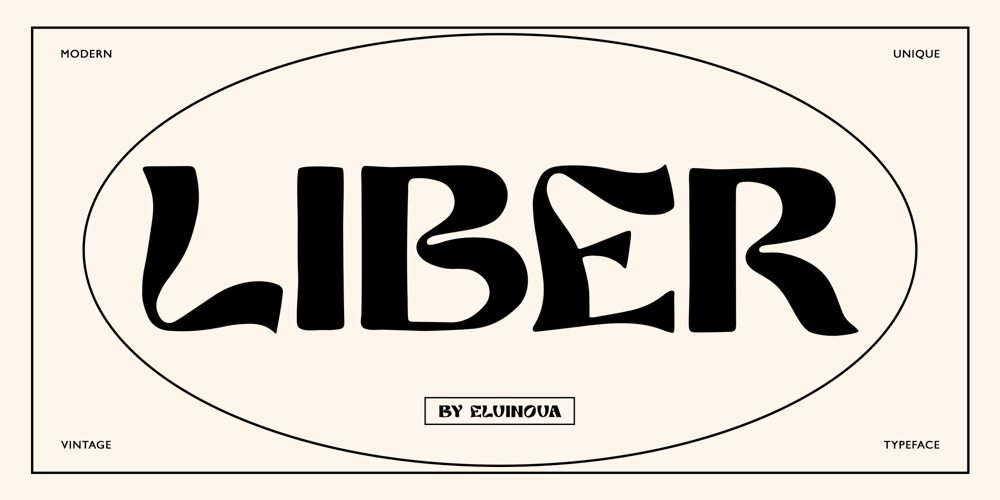
Liber Font Family was designed by Elvina Gafarova and published by Elvina Studio. Liber contains 2 styles and family package options. Introducing Liber All Caps font, modern retro typeface. Uppercase, numbers, punctuations; Multilingual support. Happy creating!